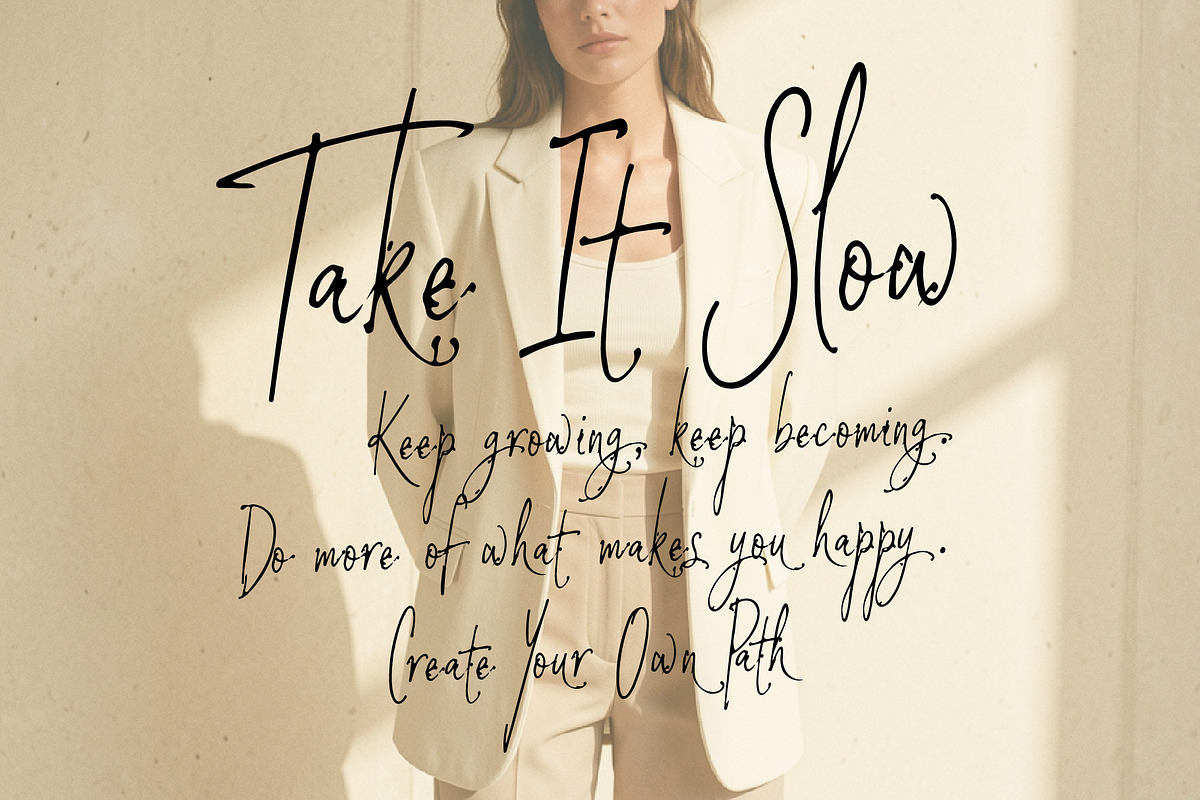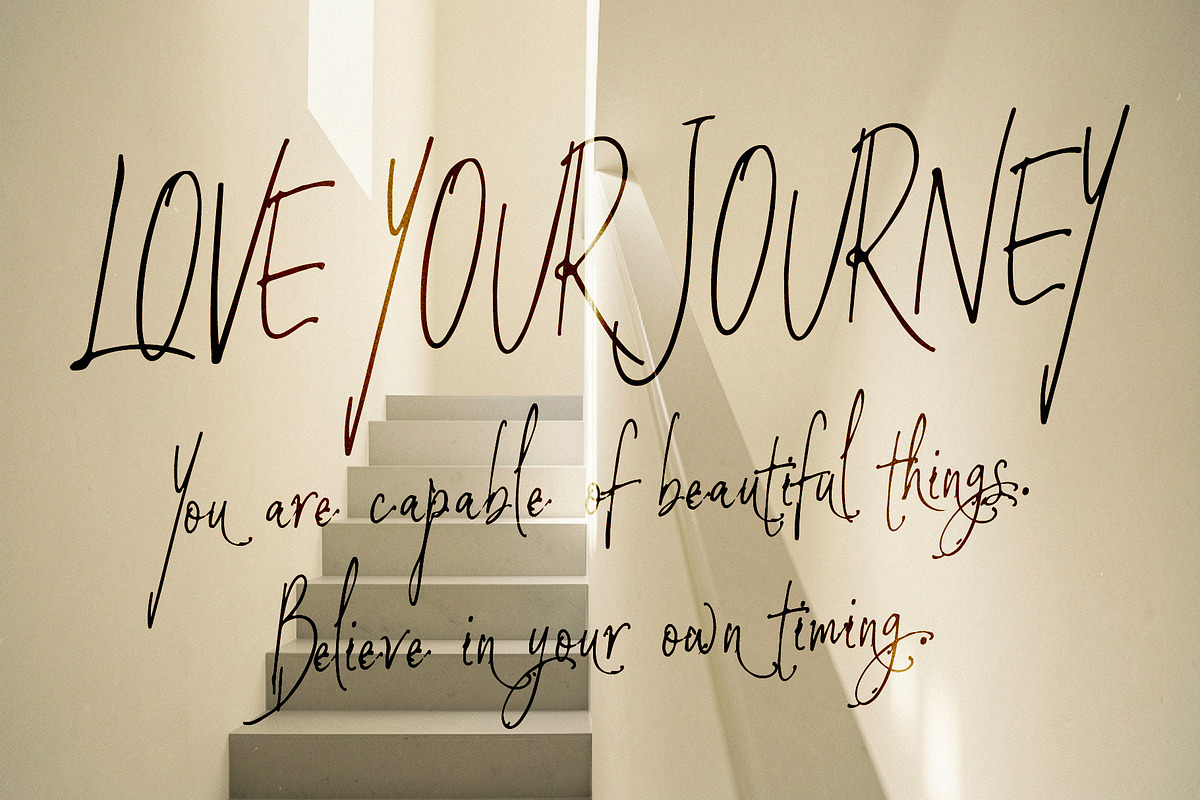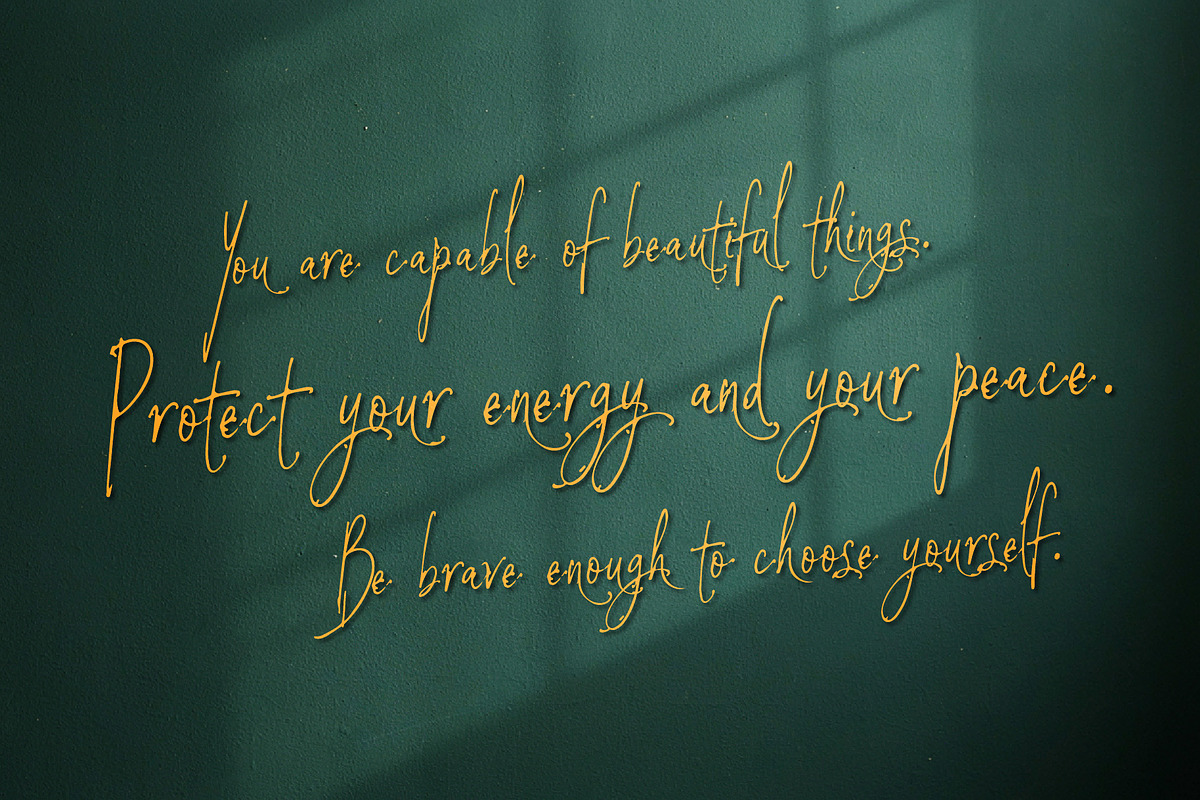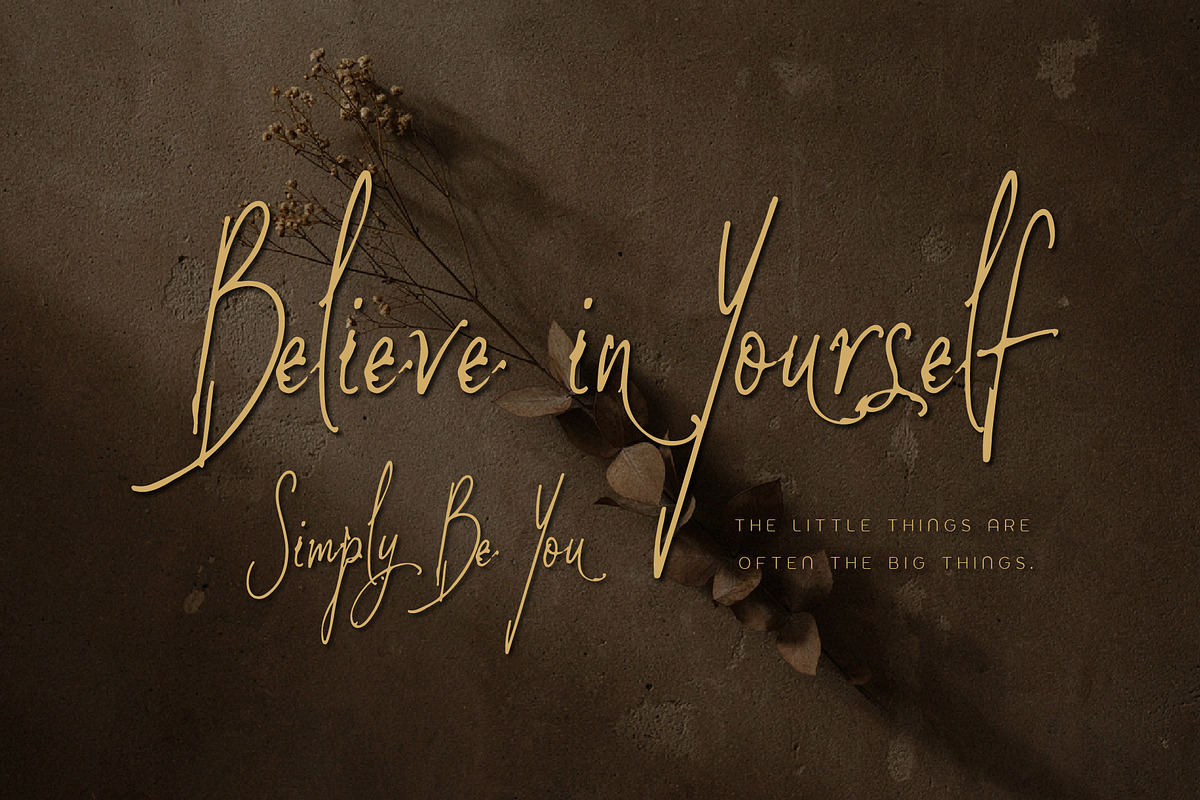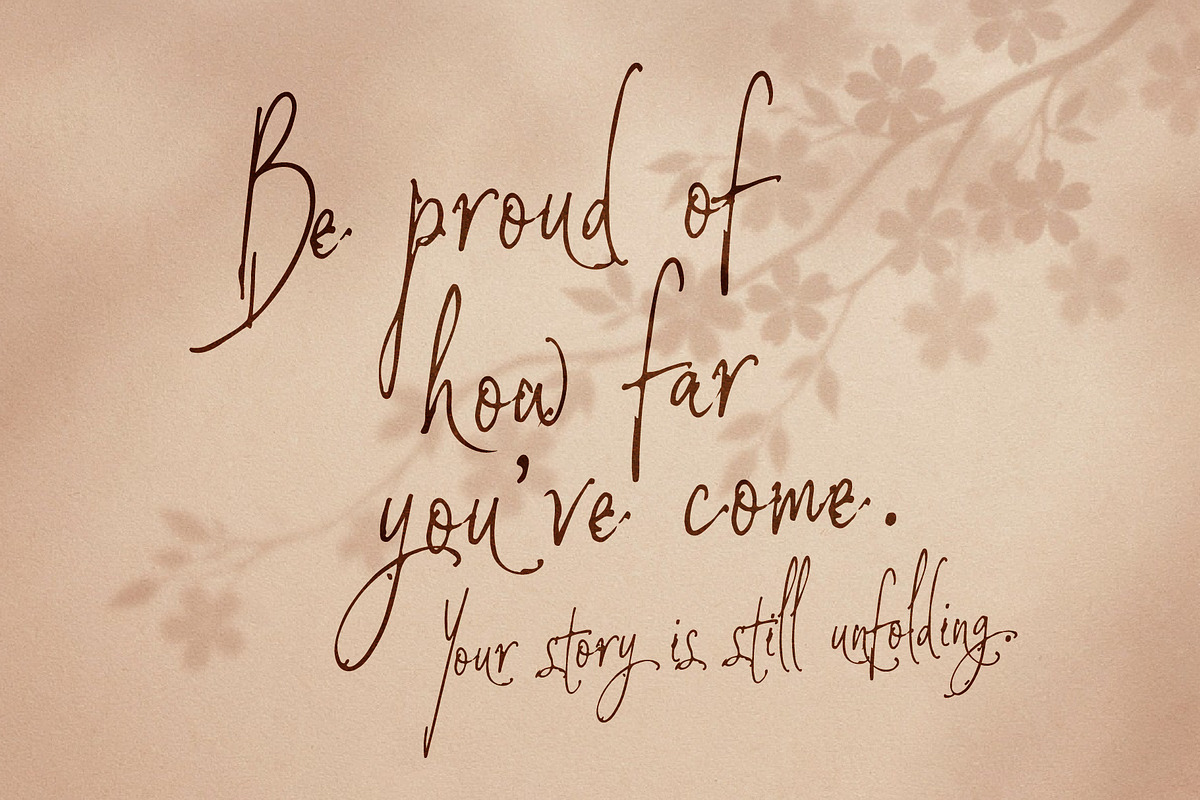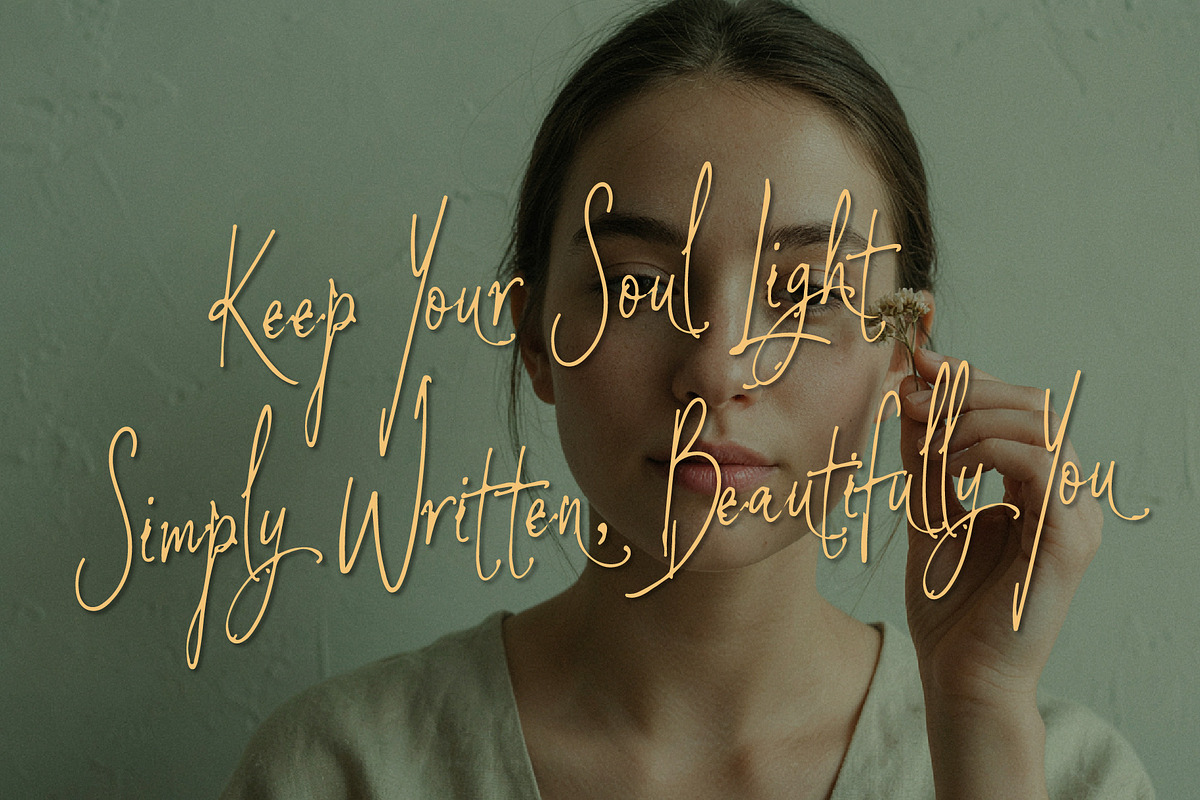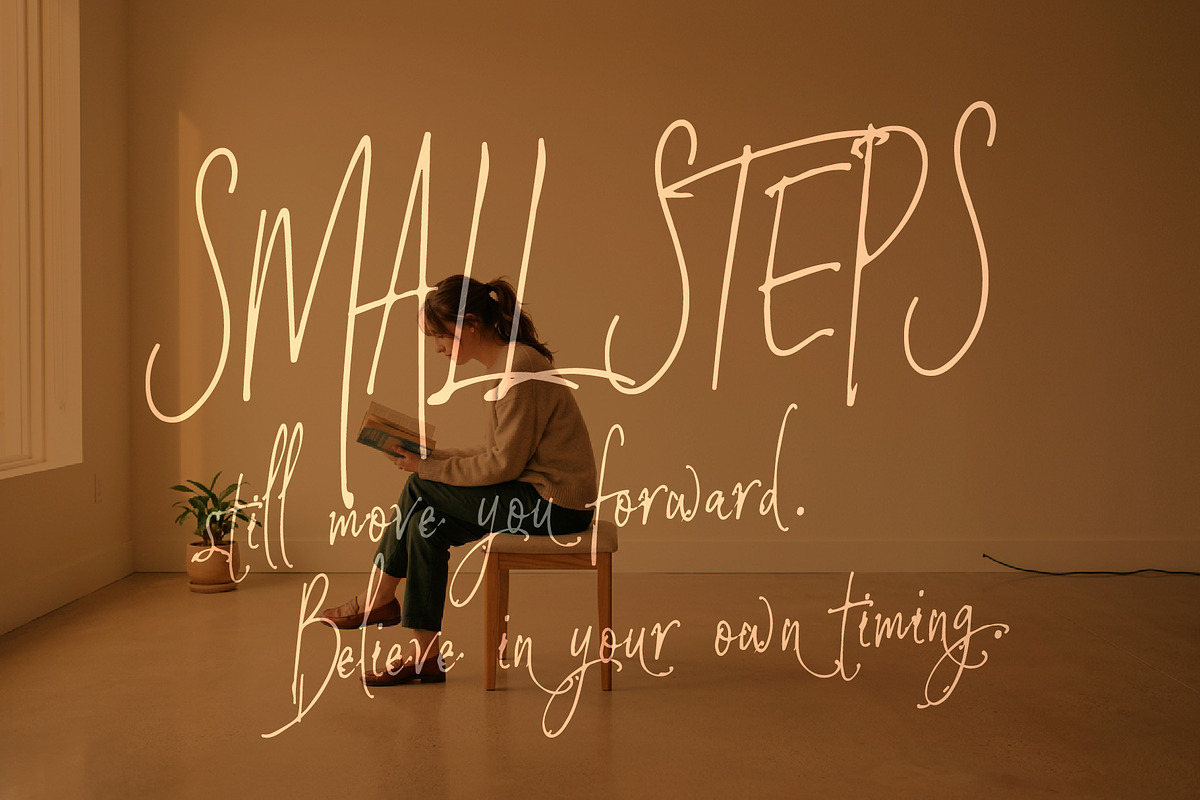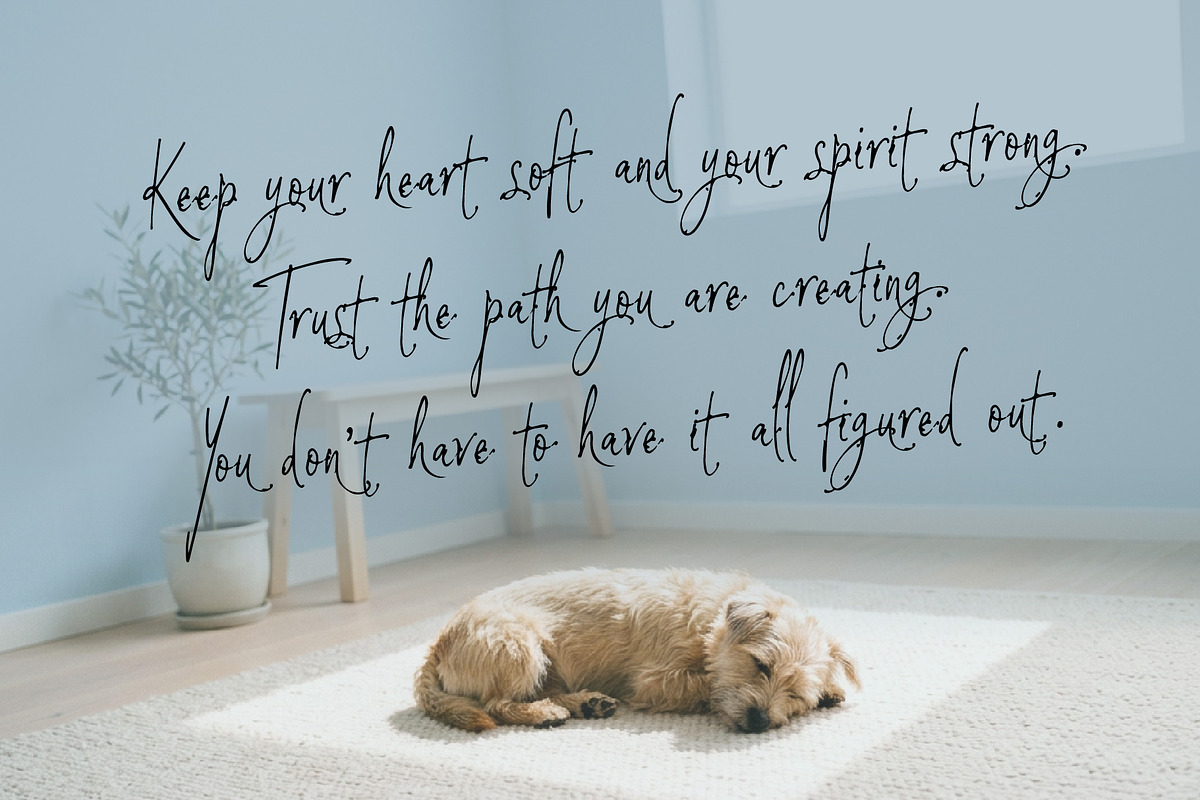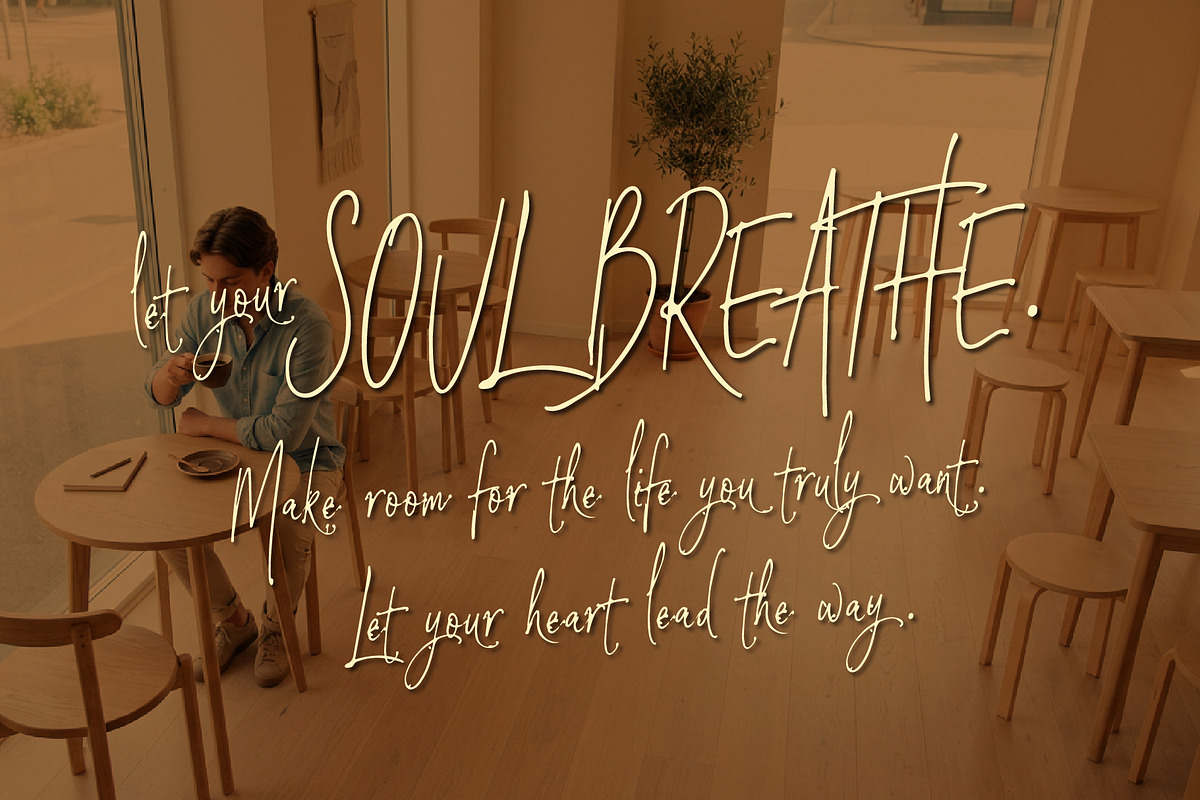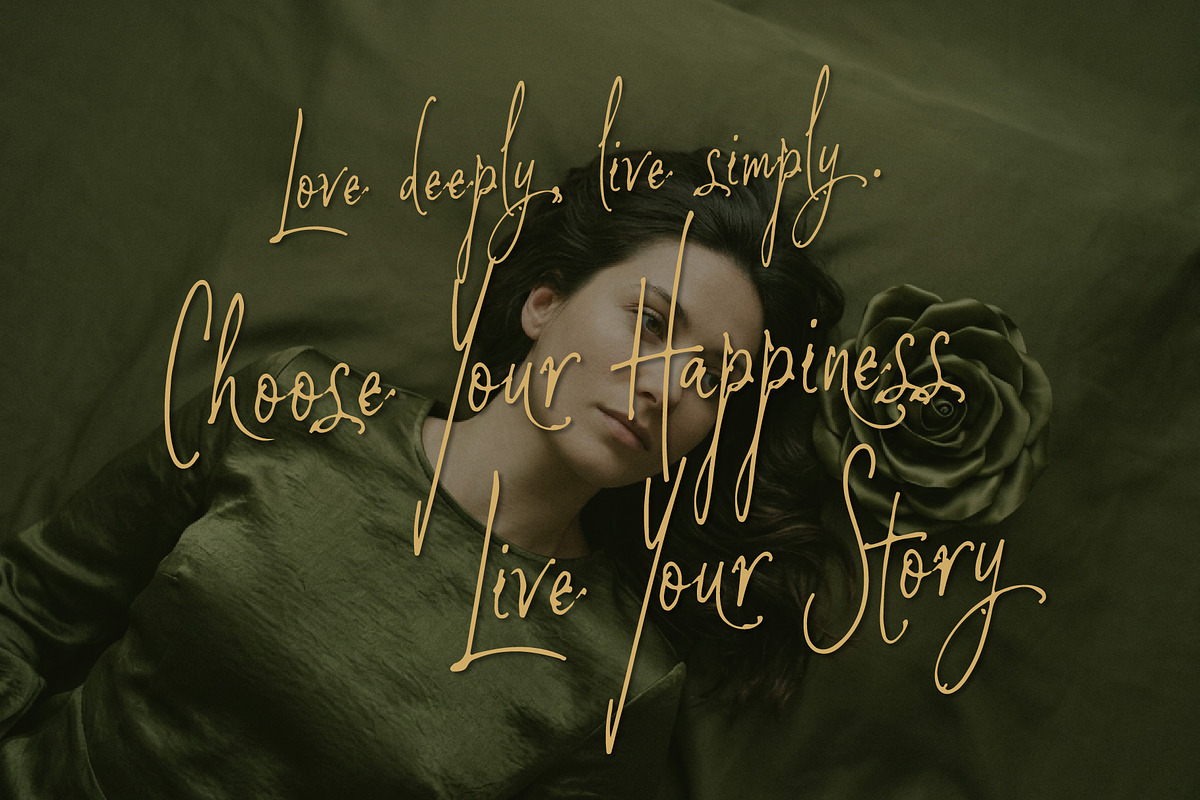
BandaMoons expressive signature font
Banda Moons is a simple and elegant expressive handwritten script inspired by the effortless flow of a personal signature. Its clean cursive strokes and natural handwritten character create a warm, graceful, and beautifully personal feel.
Banda Moons brings a refined handwritten touch to logos, branding, fashion, beauty, lifestyle, stationery, packaging, invitations, social media, quotes, and personal projects. Designed for those who love typography that feels authentic, modern, feminine, and effortlessly beautiful.